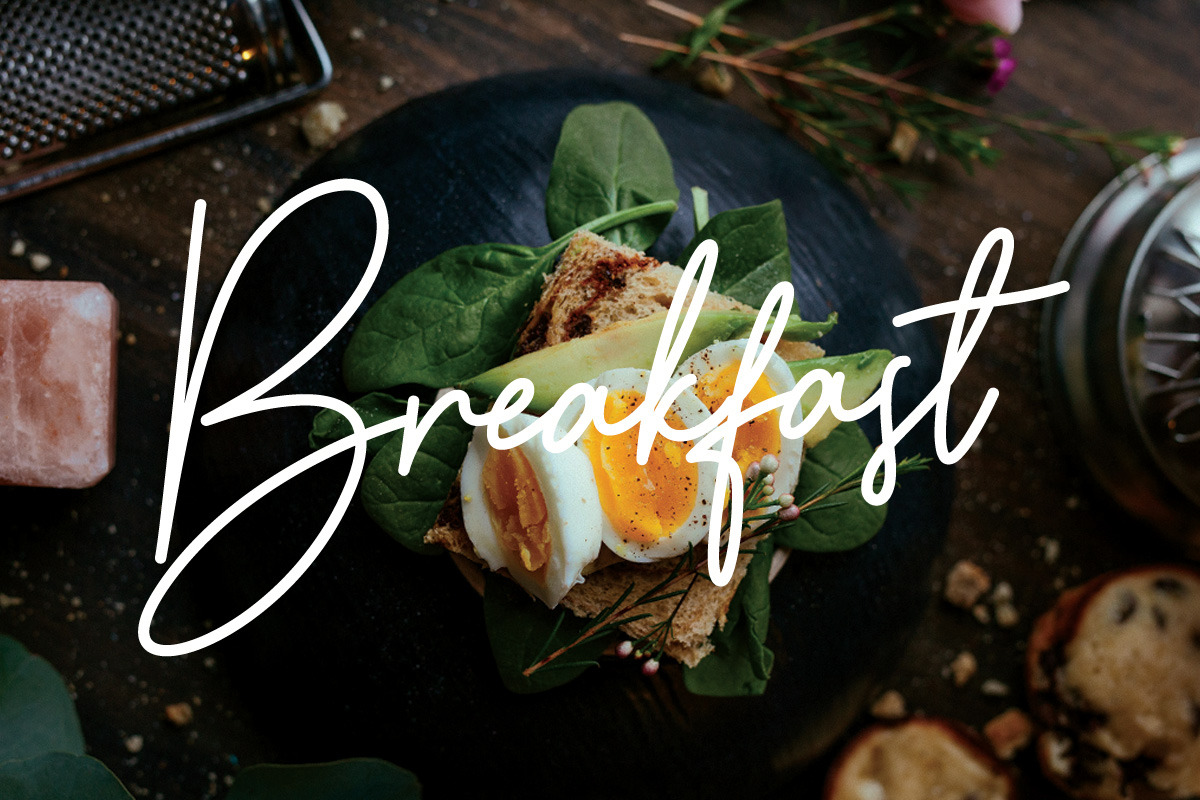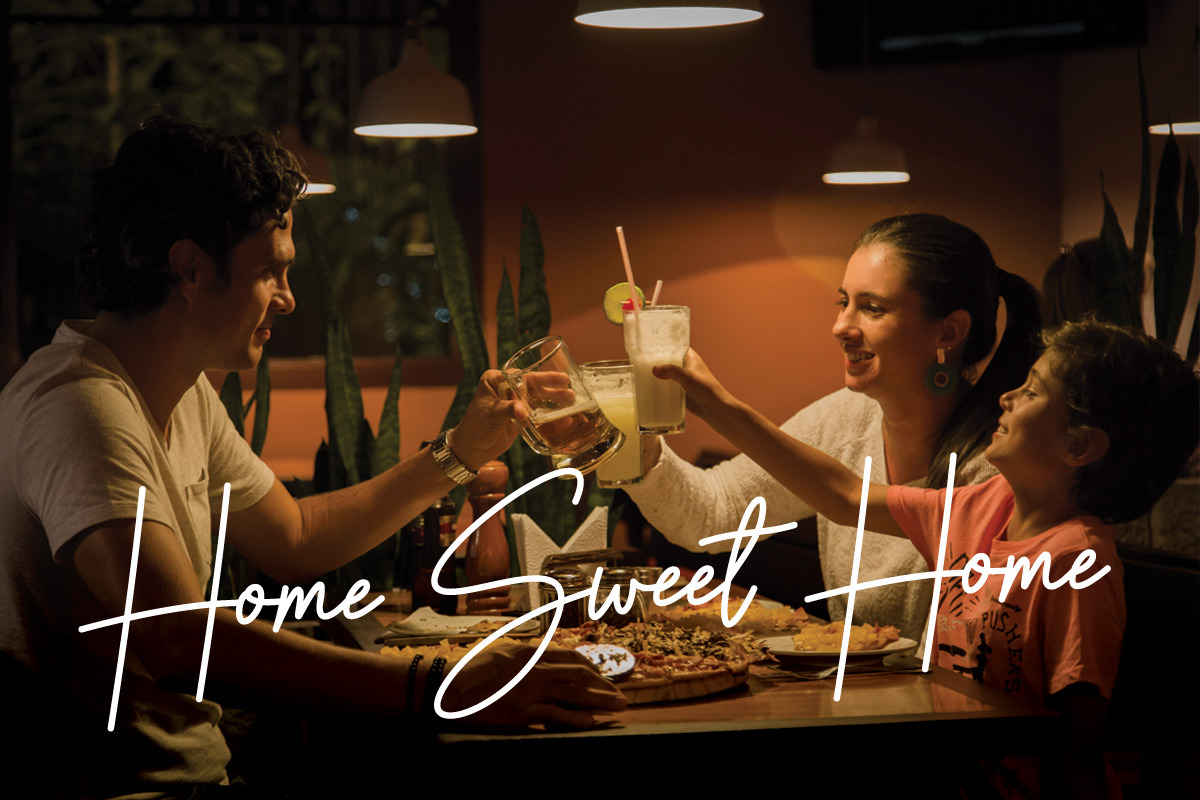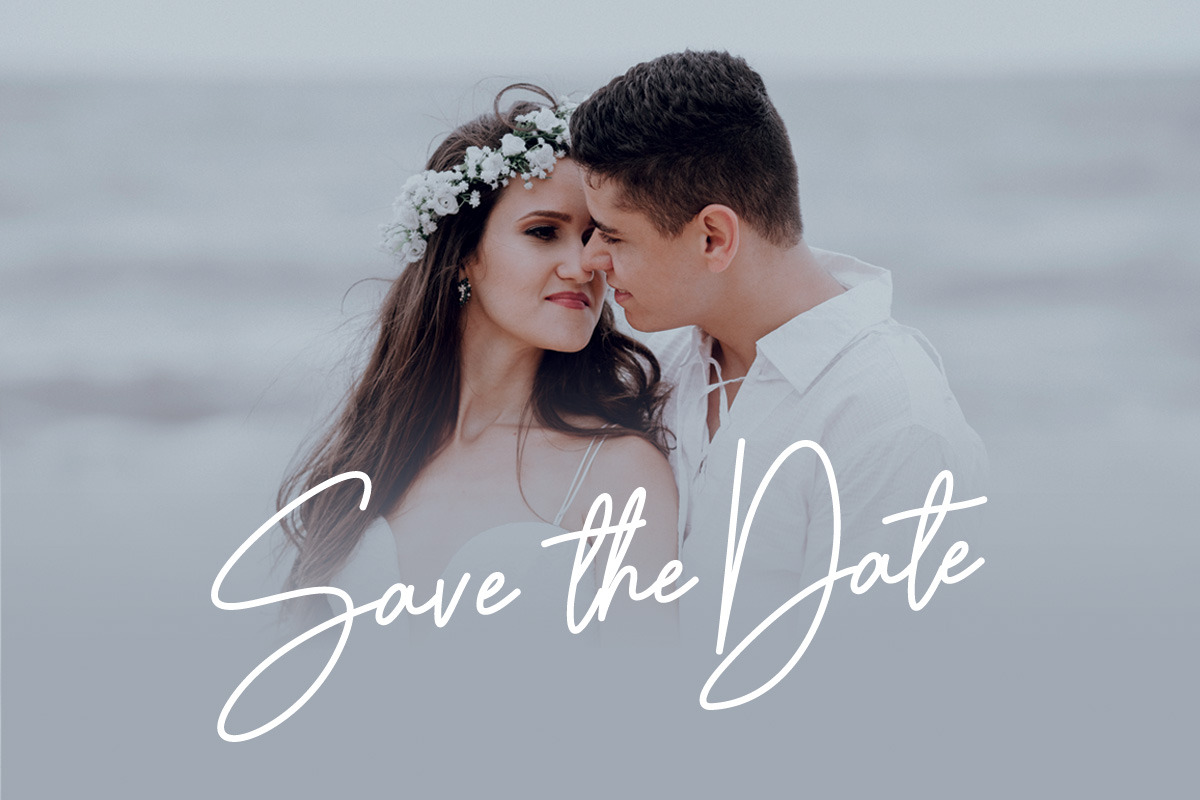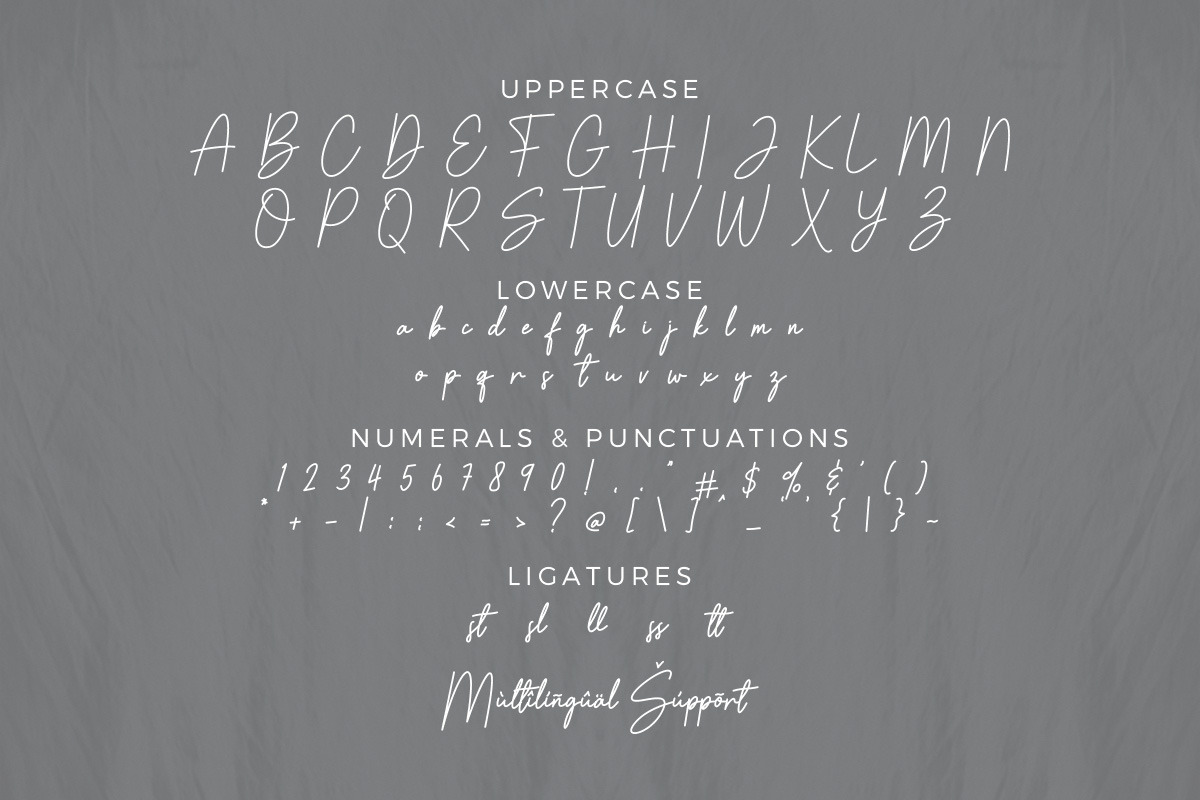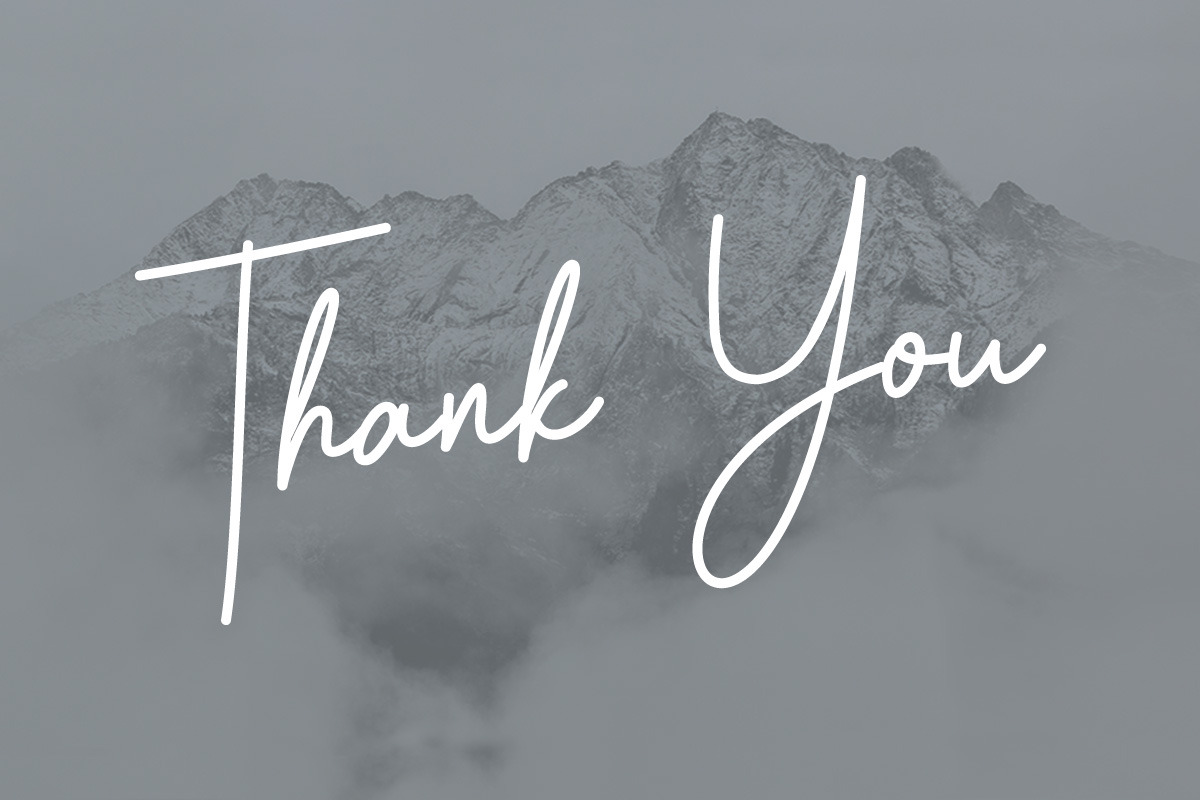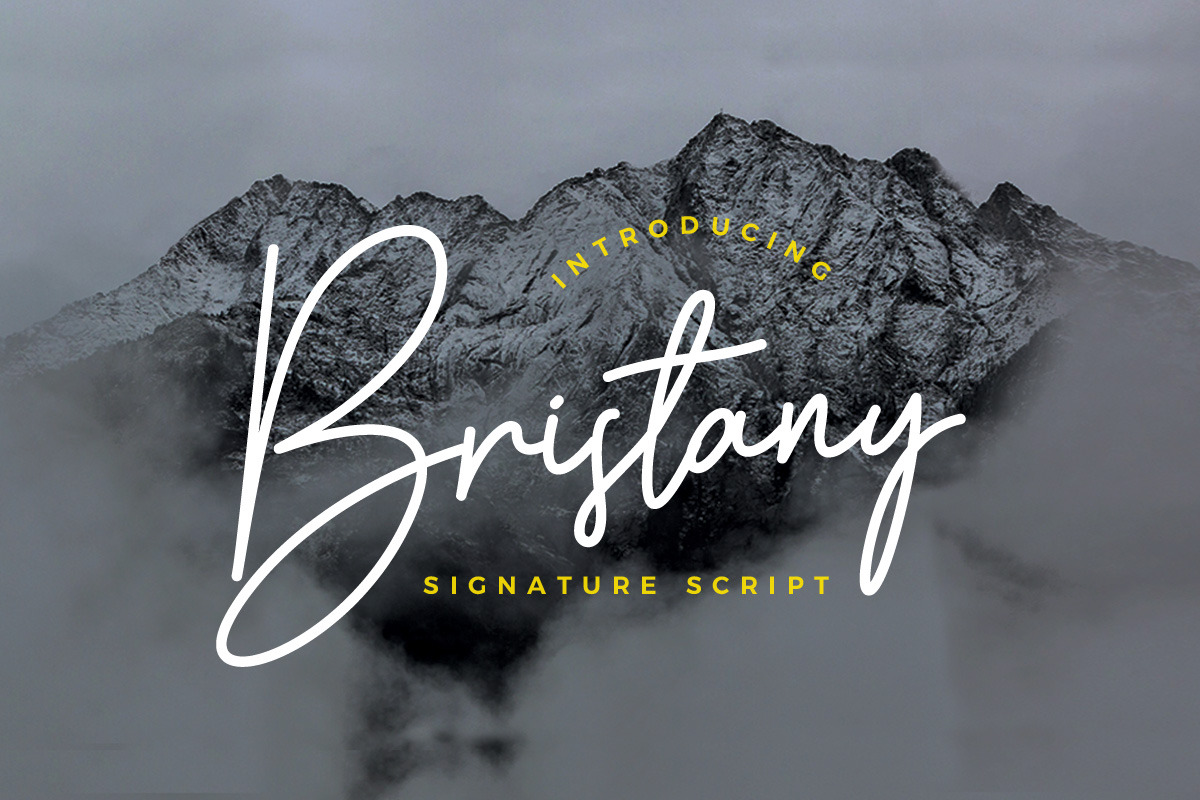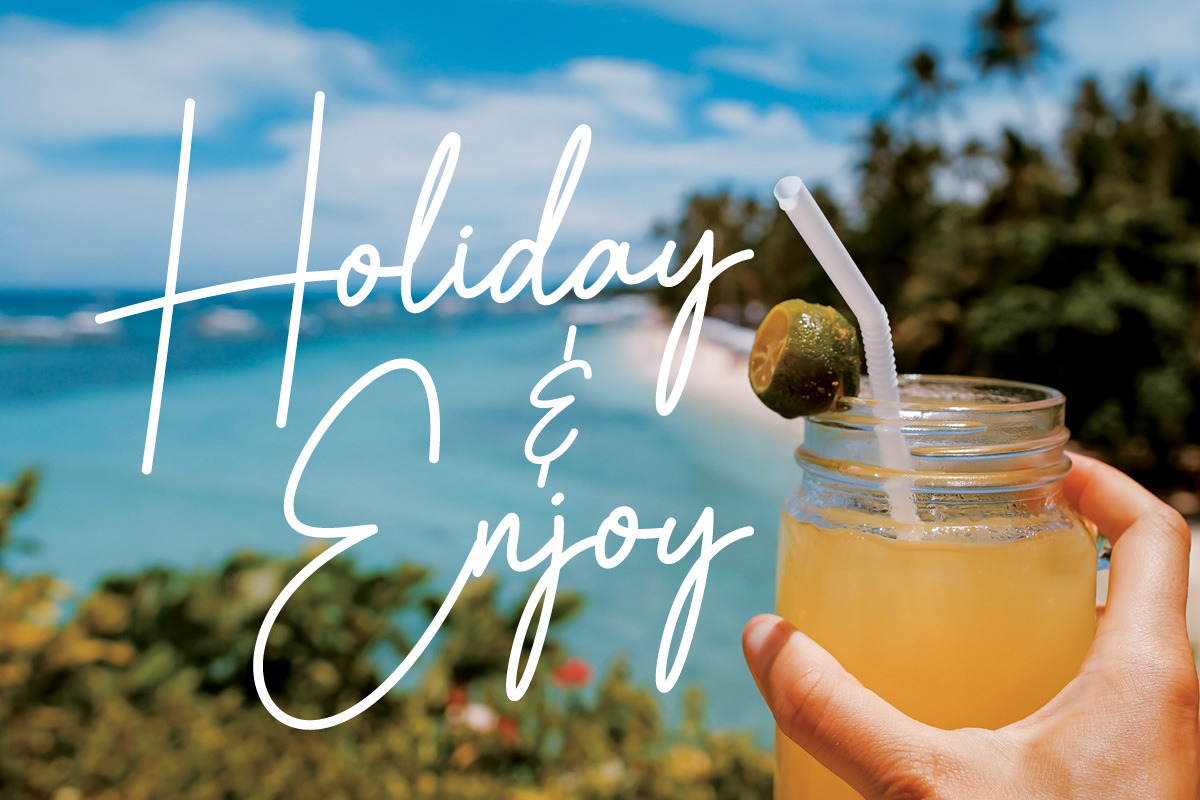
Bristany Signature Font
Bristany is a clean, elegant hand-drawn script font with unique curves and an elegant inky flow. Bristany is perfect for photography, watermark, social media posts, advertisements, logos & branding, invitation, product designs, label, stationery, wedding designs, product packaging, special events or anything that need handwriting taste.
- Numbers & Symbols